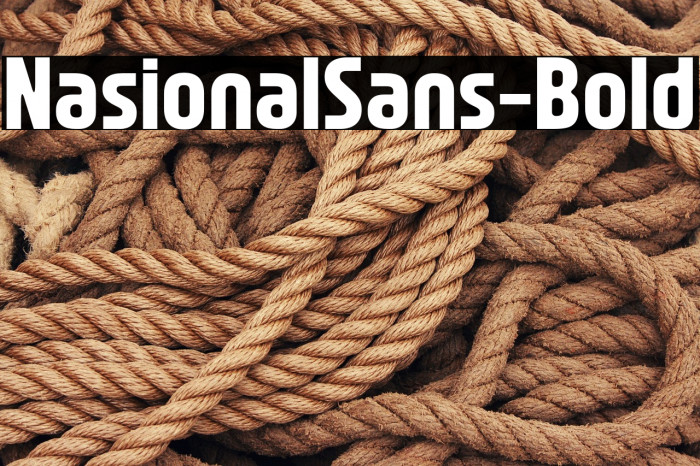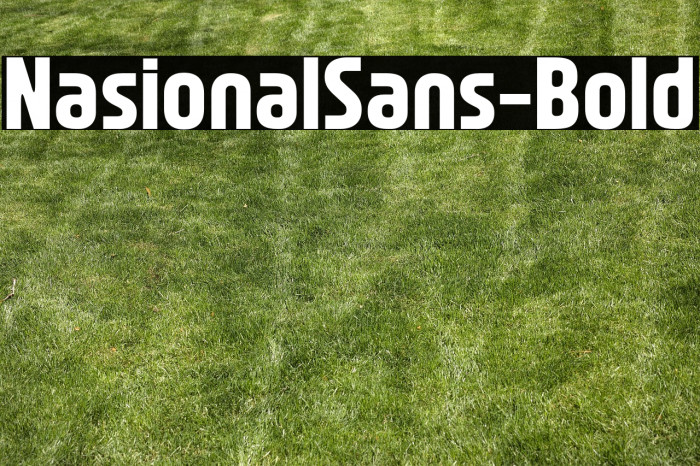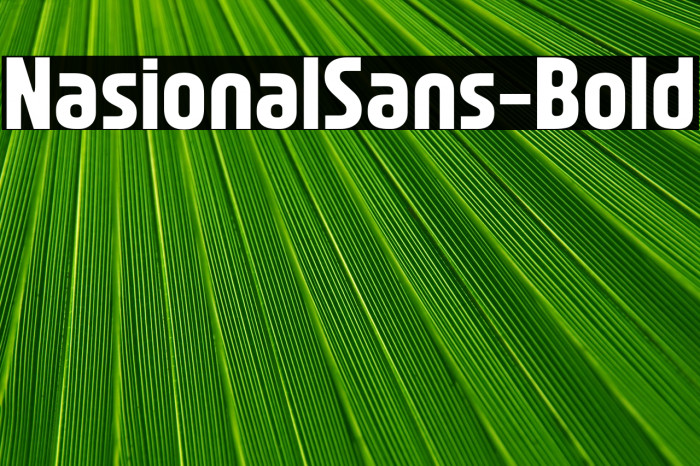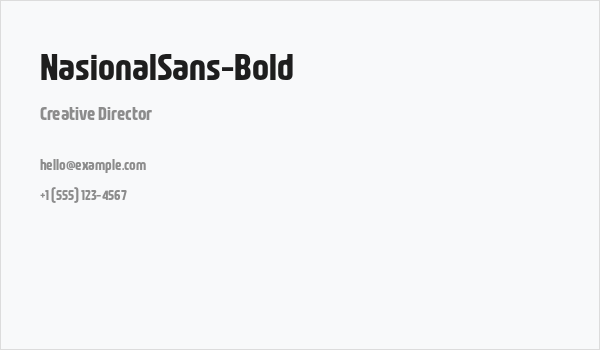
NasionalSans-Bold Font
NasionalSans-Bold Description
This font features a bold and robust design, characterized by its thick strokes and strong presence. The letters are crafted with a modern sans-serif style, offering a clean and straightforward appearance. The uppercase and lowercase letters maintain a consistent weight, providing a harmonious look across all characters. The numerals and special characters are designed to match the boldness of the alphabet, ensuring uniformity throughout. Its geometric shapes and even proportions make it suitable for a variety of applications, offering both readability and visual impact.